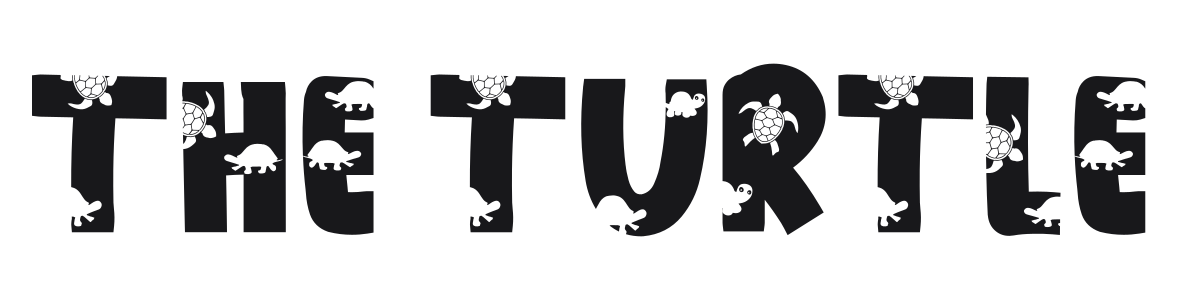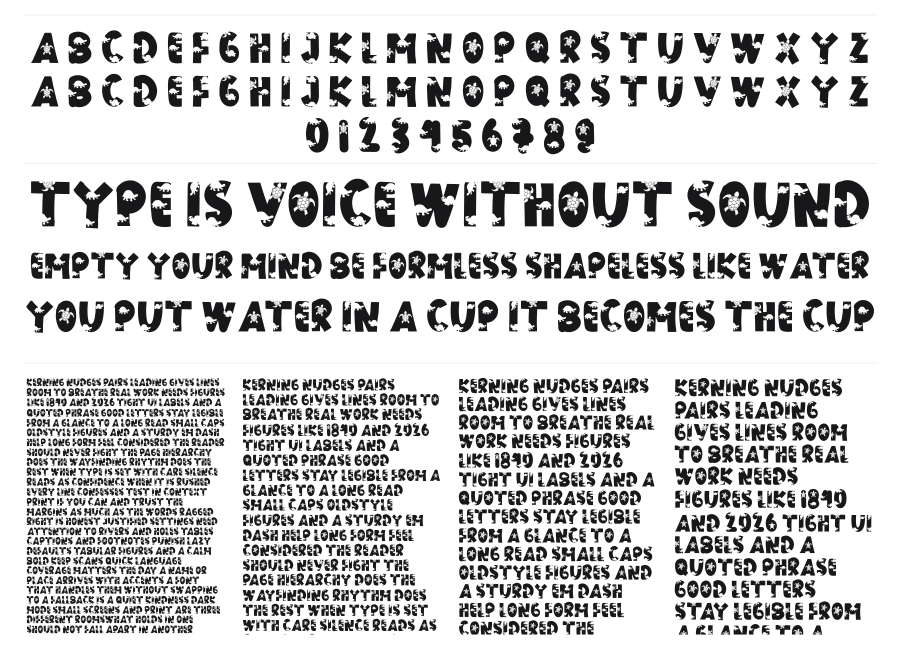
The Turtle
The Turtle is a bold novelty display font from Letterday Studio where each character is packed with repeating turtle silhouettes. The chunky, wide letters act as containers for the illustrations, making every word feel like a field guide come to life. It works best at large sizes where the turtle details inside each character stay legible.